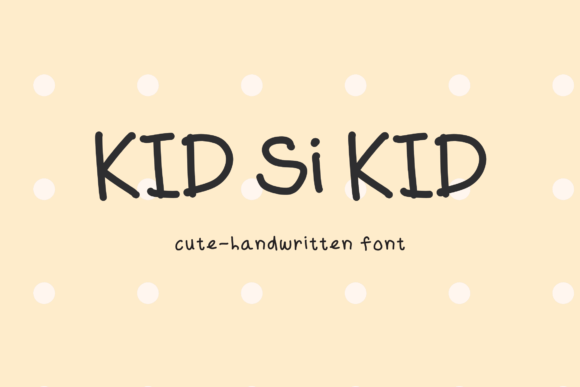
Prepare yourself to embark on a typographic adventure with Kid Si Kid, the whimsical handwritten font that will infuse your designs with an irresistible charm. This playful font, crafted by the talented vocrub, exudes cuteness and cheerfulness with every stroke. Its delightful letterforms, adorned with endearing quirks and captivating imperfections, add a touch of childlike wonder to your projects.
With Kid Si Kid, your designs will radiate an aura of innocence and enchantment. Picture your children's books adorned with this font, their pages filled with whimsical tales that transport young readers to magical lands. Create eye-catching greeting cards that spread warmth and cheer, with messages penned in Kid Si Kid's enchanting script. Or envision your branding materials infused with a playful personality, capturing the hearts of your audience with its inviting charm.
Kid Si Kid is not just a font; it's a gateway to a world of imagination and creativity. It allows you to express your artistic vision with a unique and captivating style. Its versatility knows no bounds, whether you're designing logos, posters, packaging, or social media graphics. With Kid Si Kid, your designs will stand out from the crowd, leaving an unforgettable mark on all who behold them.
Join the growing community of designers who have embraced Kid Si Kid's undeniable charm. Let your creativity soar as you explore the endless possibilities that await you with this extraordinary font. Kid Si Kid is more than just a font; it's an experience that will ignite your imagination and leave you forever inspired.